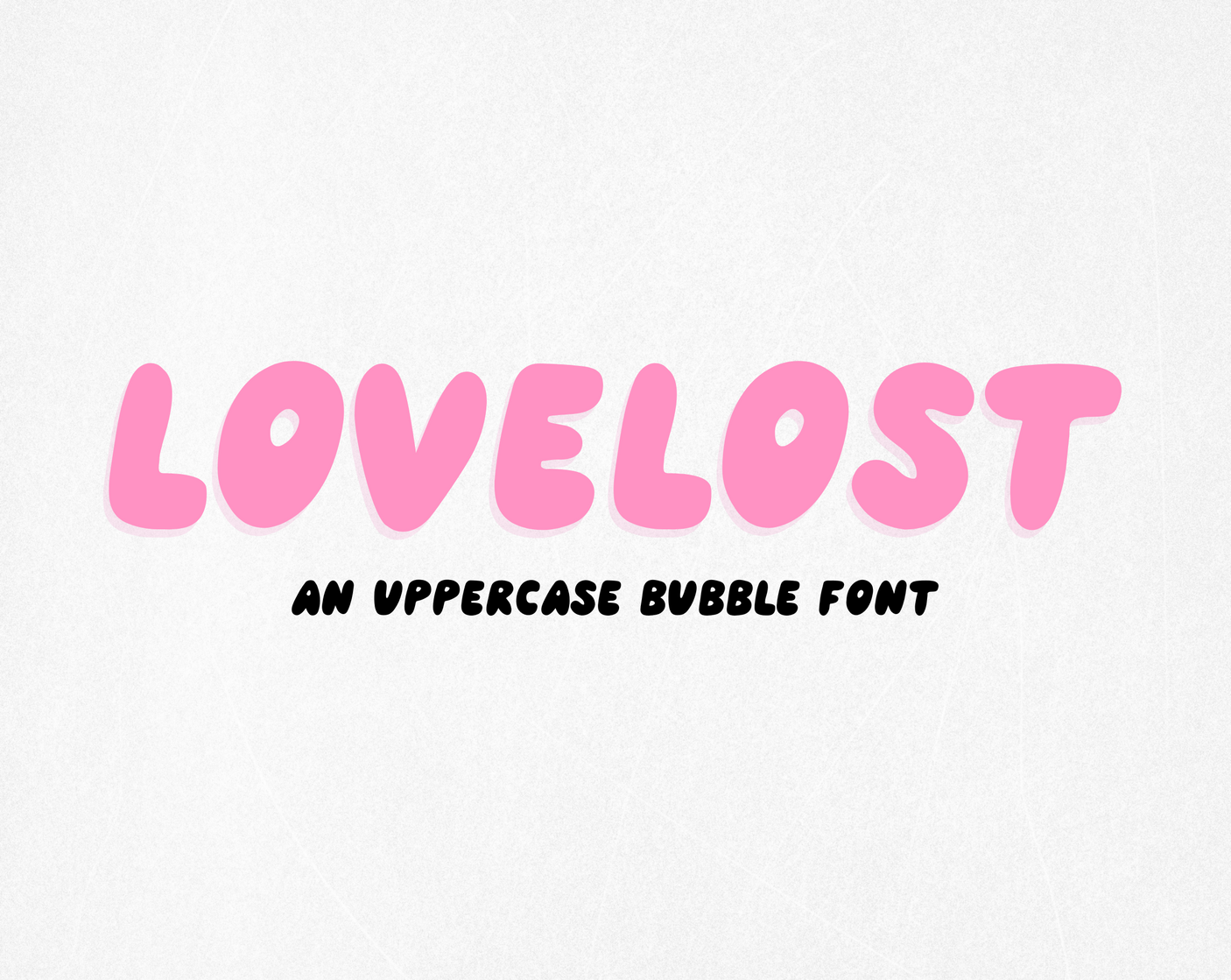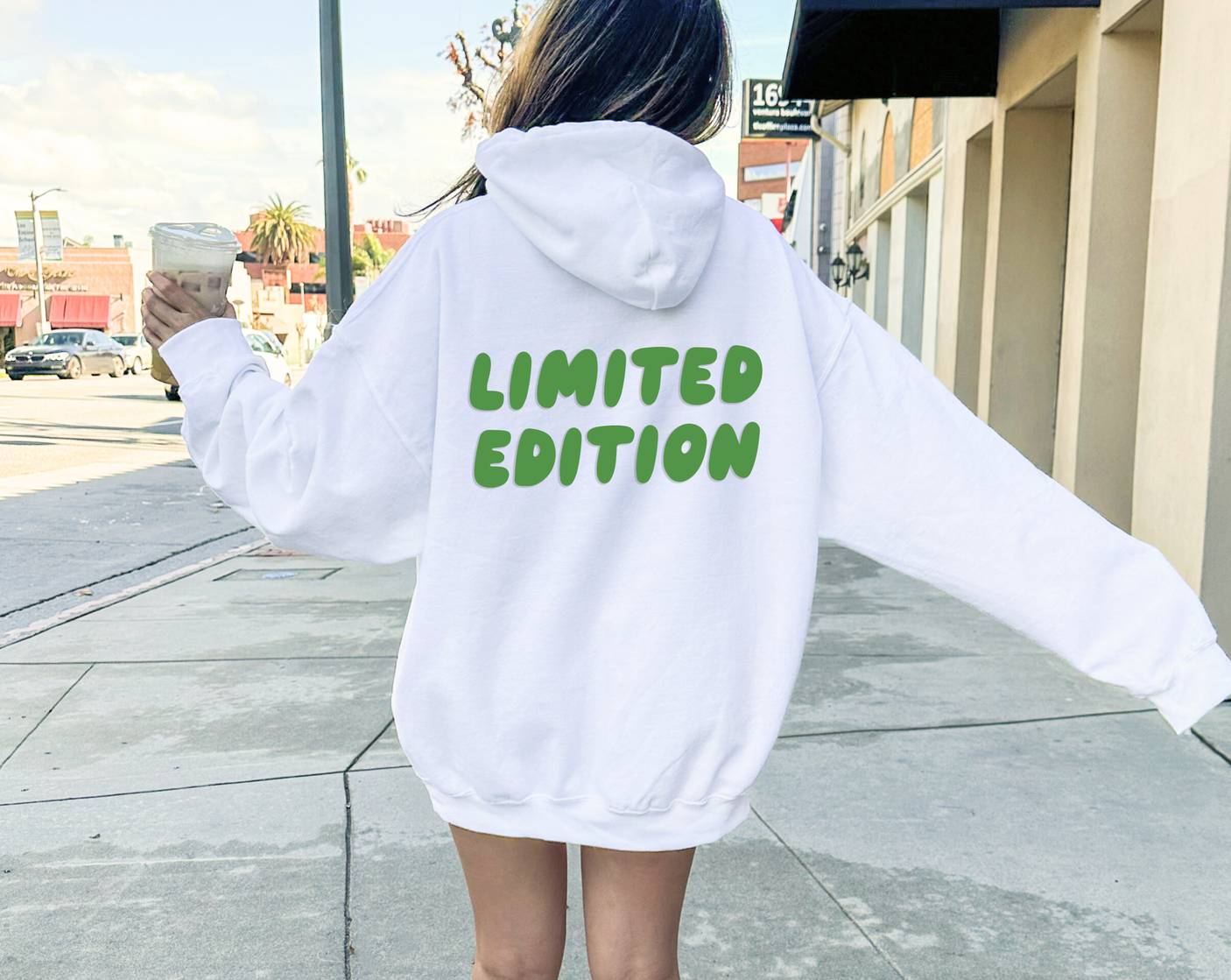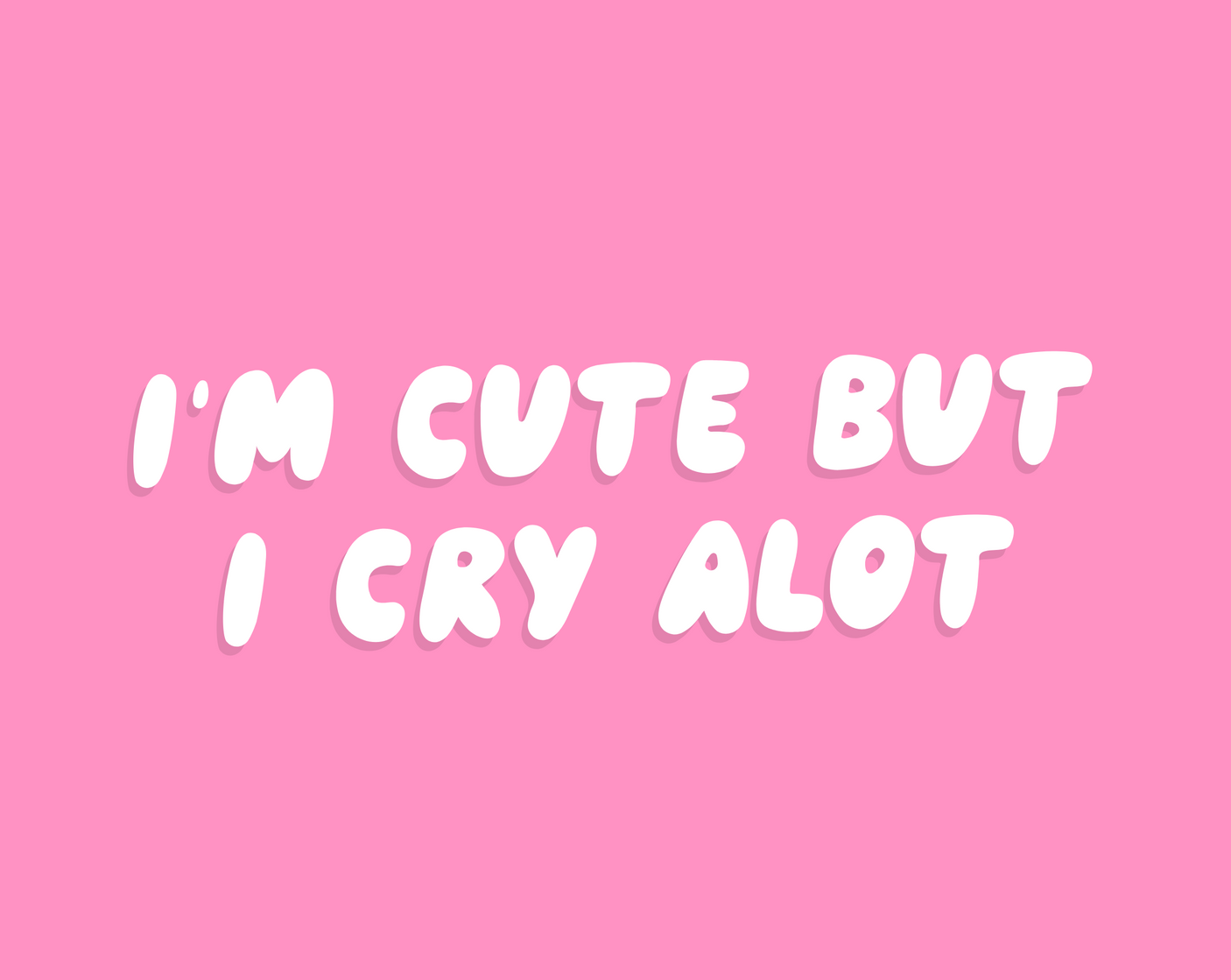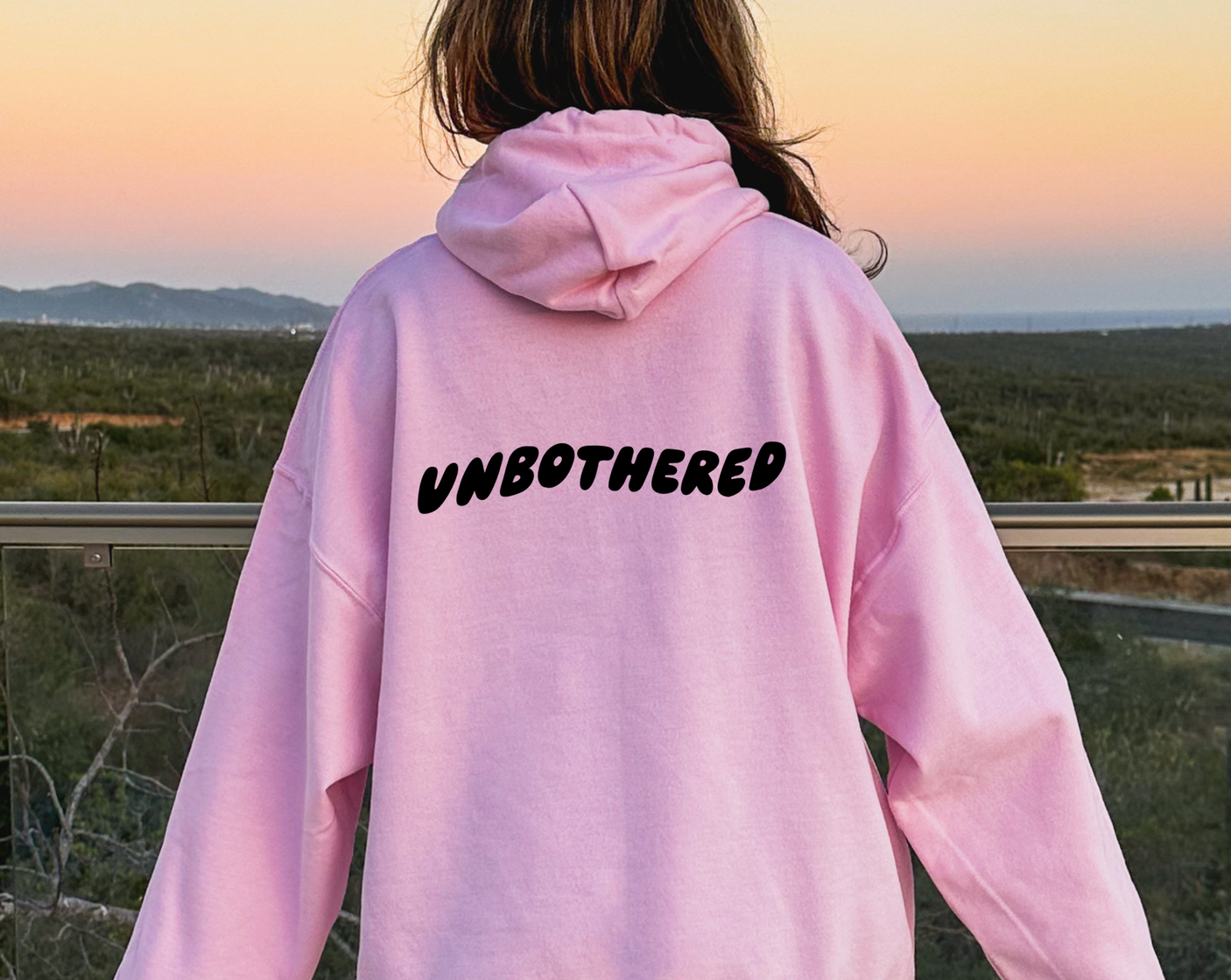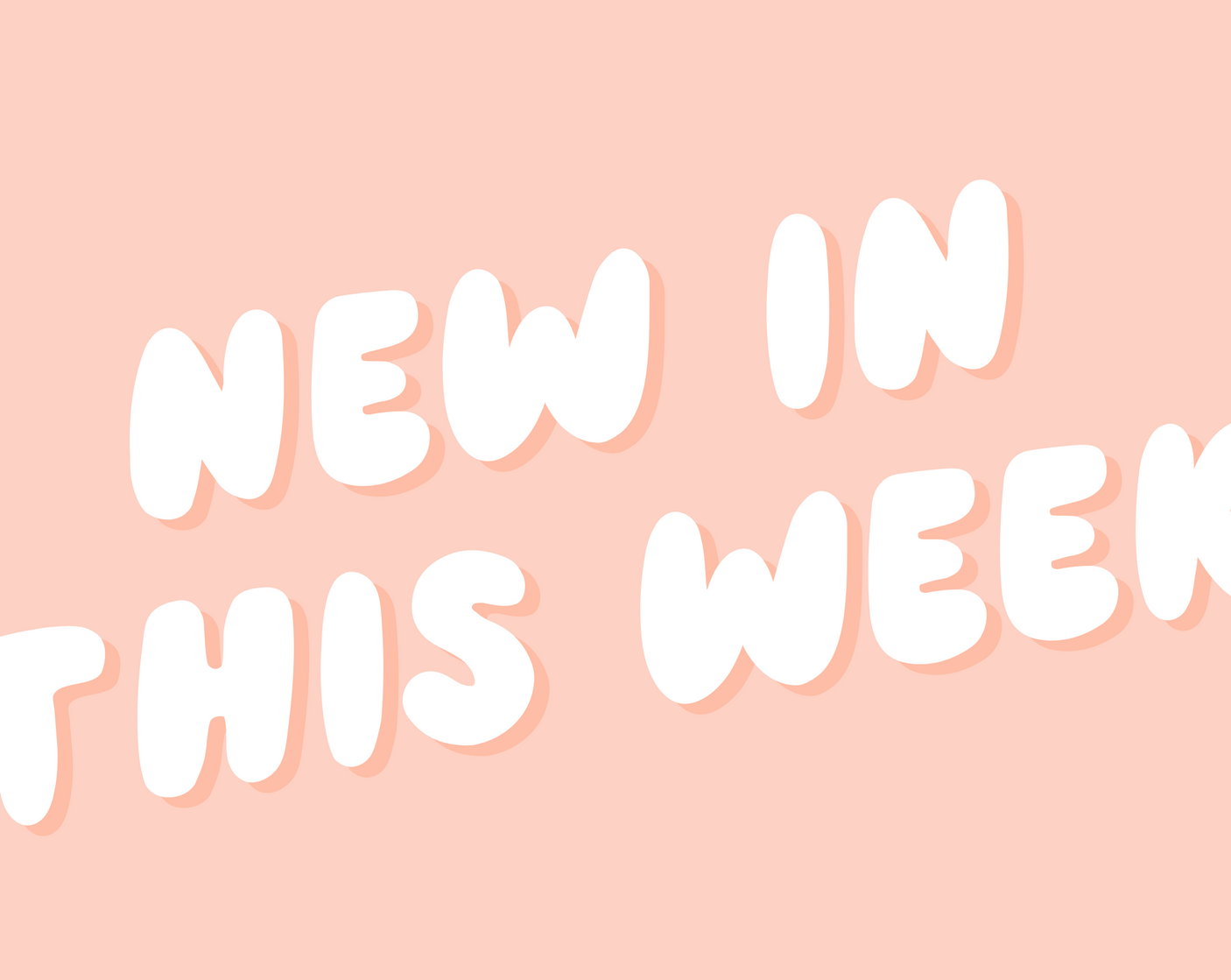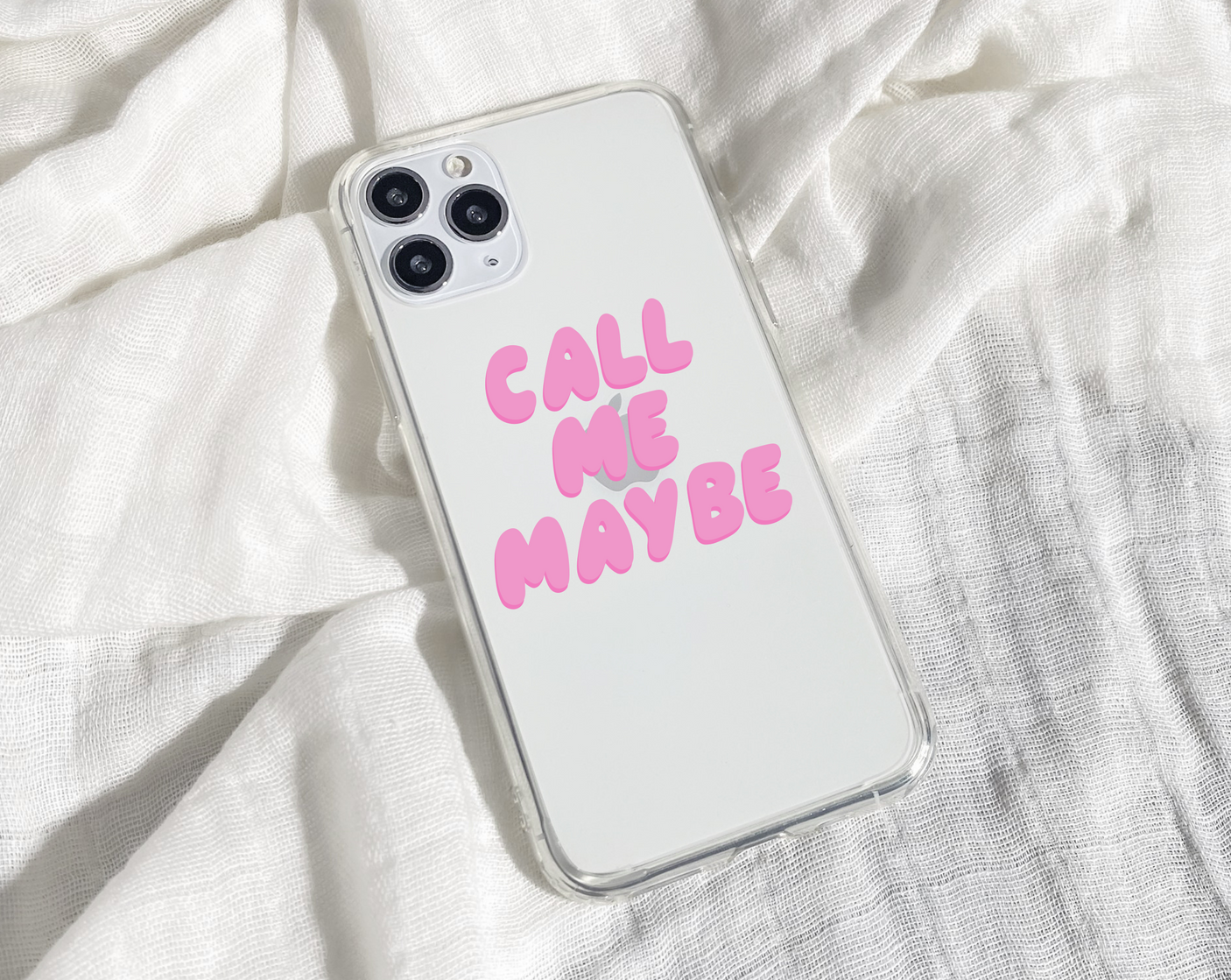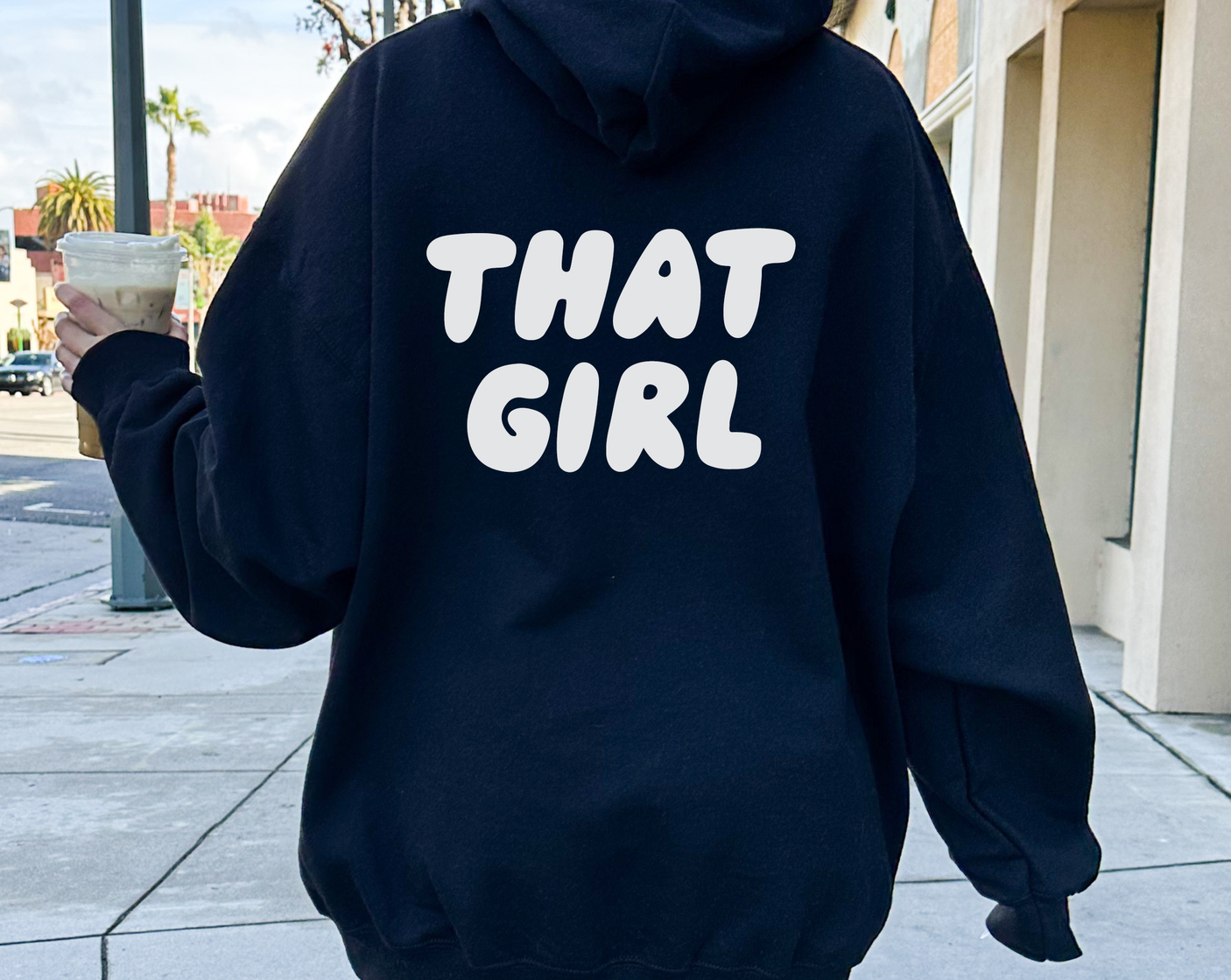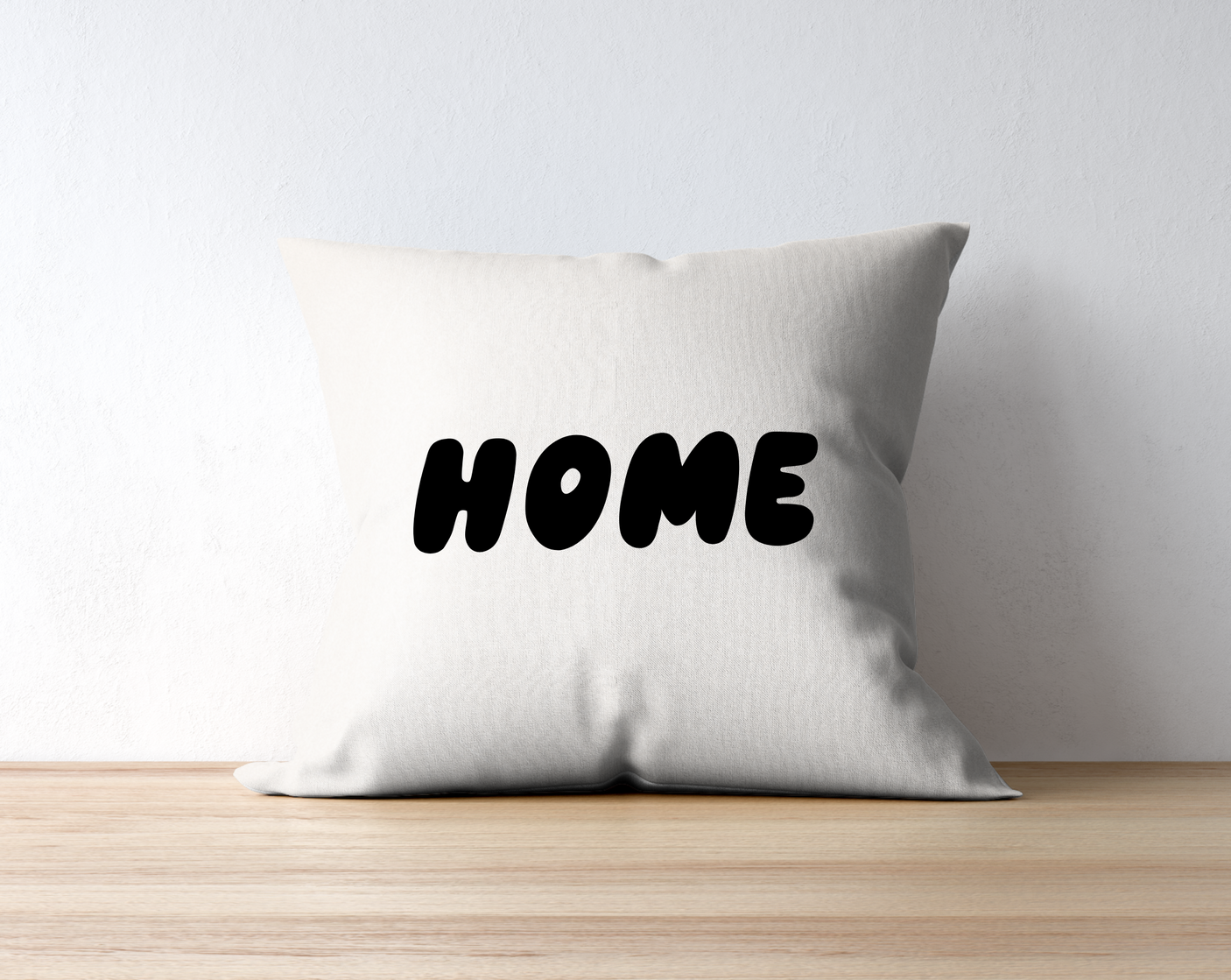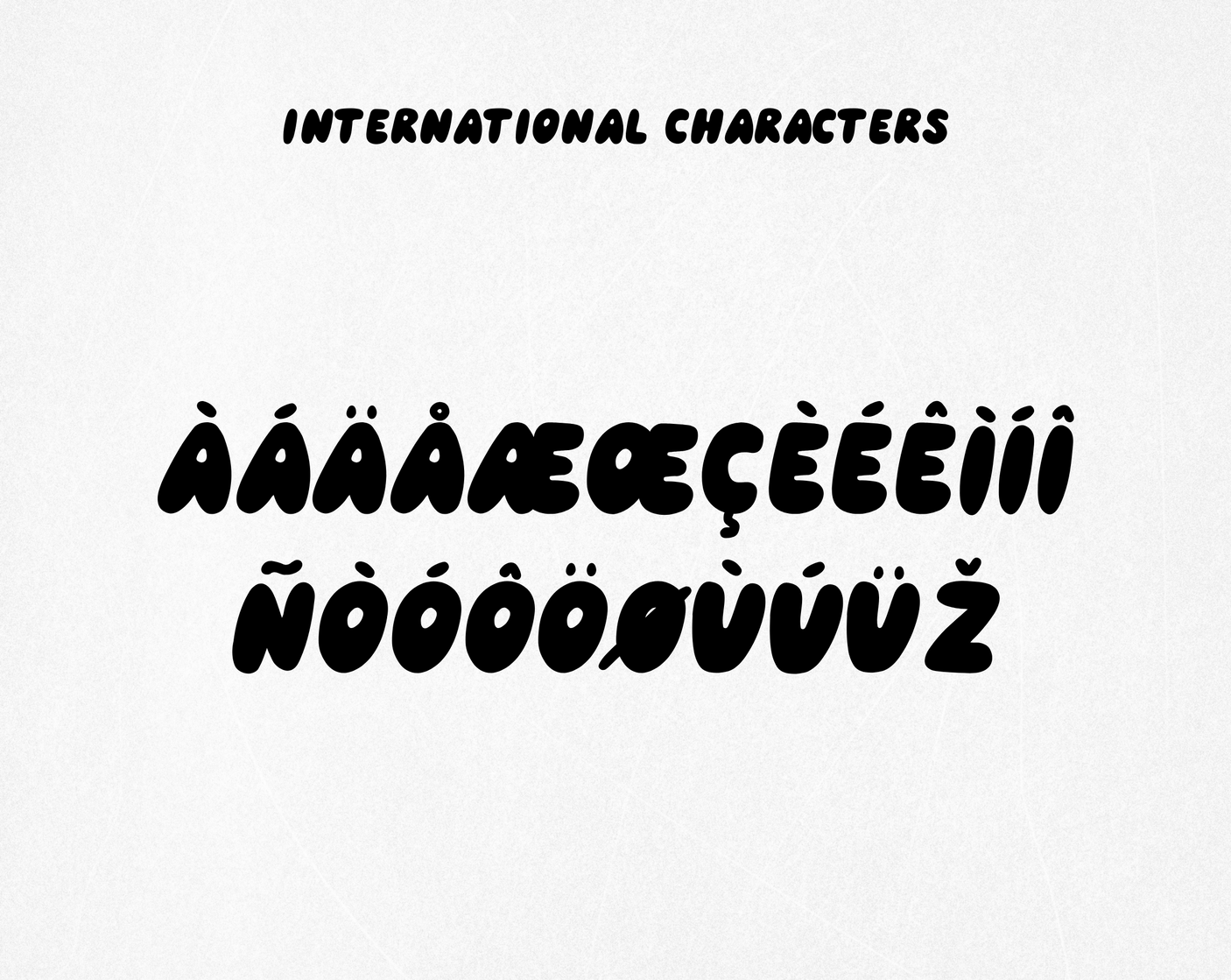
Lovelost Font
Bubble font for hoodies and sweaters called Lovelost. This all-caps font can be used for Cricut, Procreate, Photoshop, iPad and more. It’s a bold handwritten font in all uppercase, great for creating SVGs and prints for apparel.
Lovelost is a trendy bubble font for 2023. Add it to your font collection for creating designs that will stand out.